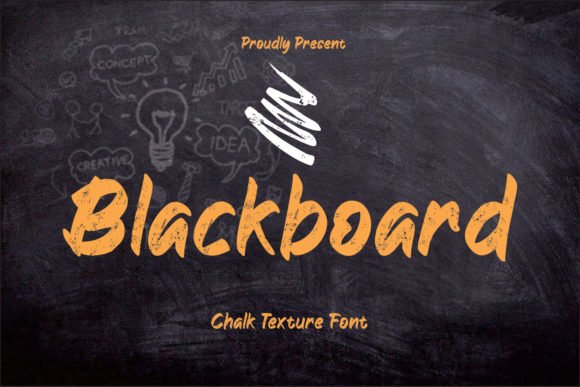
The Timeless Charm of Handwritten Typography
Have you ever been brainstorming ideas for a project, and suddenly, a spark of creativity hits you? Maybe it’s a sketch on a napkin, a doodle on a sticky note, or a scribble on a chalkboard. For designers, those fleeting moments of inspiration can often lead to something truly special. And that’s exactly what the Blackboard Font is all about – capturing the essence of handwritten typography in a classic, timeless way.
This beautiful font is perfect for adding a touch of personality to your designs, whether it’s a busy background or a standalone headline. Its versatility makes it a valuable asset for designers, allowing them to add a human touch to their work. With the Blackboard Font, you can create pieces that feel authentic, approachable, and genuinely engaging.
Key Features of Blackboard Font
- Unique Characteristics: The Blackboard Font features a distinctive, handwritten style with irregular letterforms, giving it a unique and artistic appearance.
- Font Style: The font has a casual, cursive style, making it ideal for use in creative and informal contexts such as invitations, greeting cards, and social media graphics.
Blackboard Font Review
When I first came across the Blackboard Font, I was intrigued by its unique, distressed aesthetic. The font has a certain charm to it, reminiscent of old chalkboards and handwritten notes. ✨
One of the things that works well in this font is its versatility. It can be used for a wide range of applications, from titles and headings to body text. The font also comes in a variety of weights, which can be useful for creating visual hierarchy and emphasis. ✨
However, there are some limitations to consider. The font can be difficult to read, especially in smaller sizes. The distressed texture can also make it challenging to distinguish between similar-looking letters. ⚠️
Another issue I’ve encountered is the font’s lack of consistency. Sometimes the letters appear more distressed than others, which can be jarring. ⚠️
Overall, I think the Blackboard Font is a fun and creative choice for projects that require a unique, retro aesthetic. However, it’s not the best option for projects where readability is a top priority. ✨
Tips for Getting the Most Out of the Blackboard Font
For the best results, use the Blackboard Font in bold or italic to add emphasis to your text.
Pair the Blackboard Font with other fonts to create a unique and eye-catching design.
The Blackboard Font is commonly used in educational settings, such as school projects and presentations.
It’s also used in designs that require a vintage or distressed look.